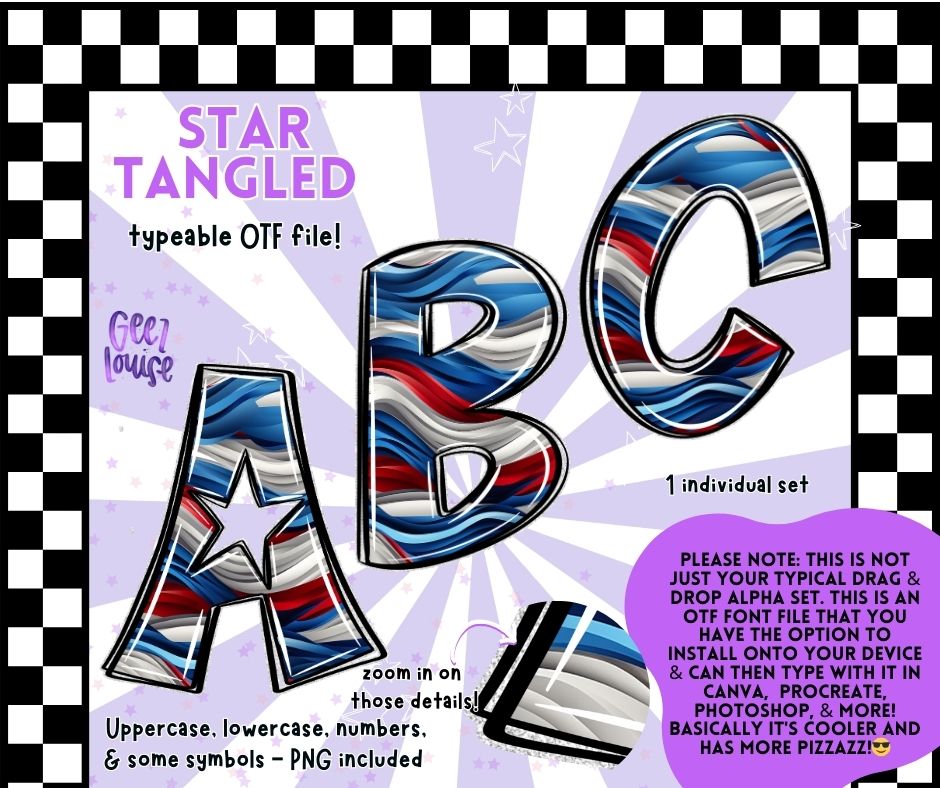
Star Tangled - OTF Font + PNG Alpha Set
Say hello to Star Tangled – the bold, wavy alpha that’s bringing all the star-spangled drama your designs deserve! This typeable OTF font delivers a sleek swirl of red, white, and blue chrome-style stripes with built-in dimensional shine and a nod to patriotic flair.
Includes uppercase, lowercase, numbers, and a handful of symbols PLUS high-res transparent PNGs for all your drag-and-drop needs. Whether you're designing for the 4th, election season, or just love a bold star moment – this set’s got main character energy.